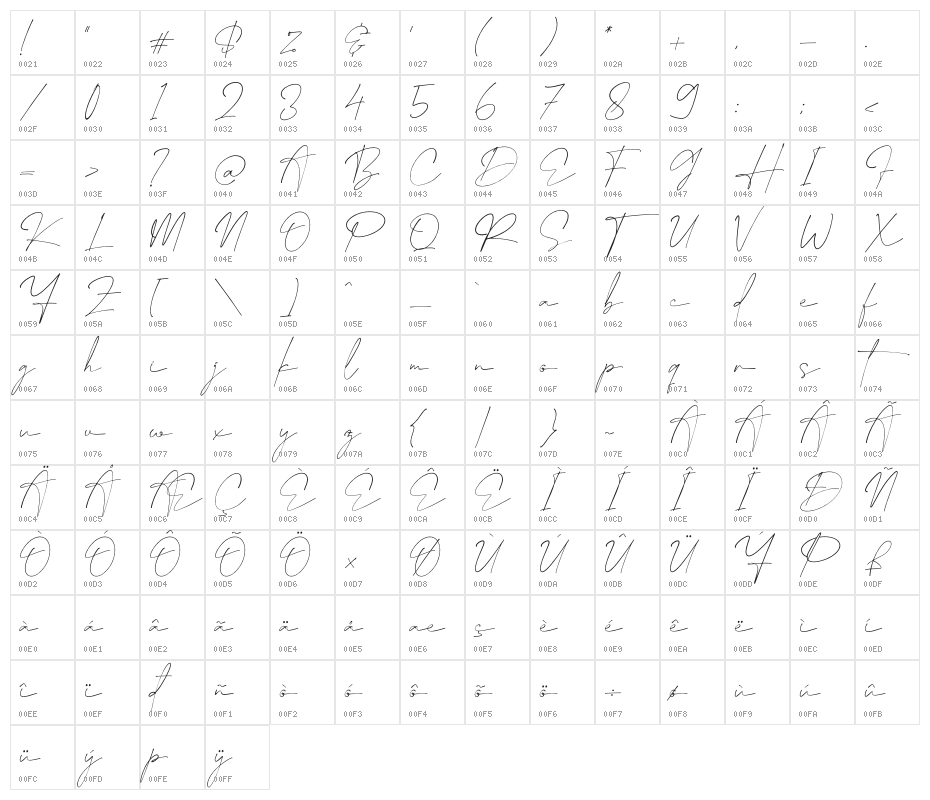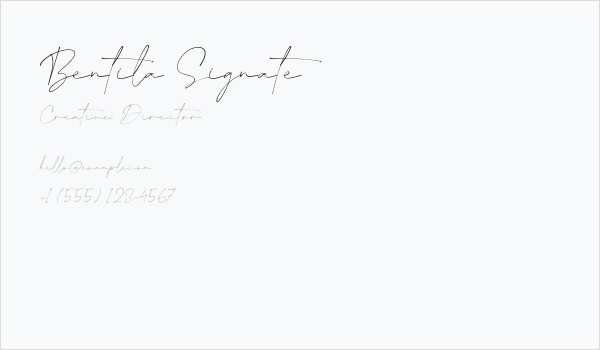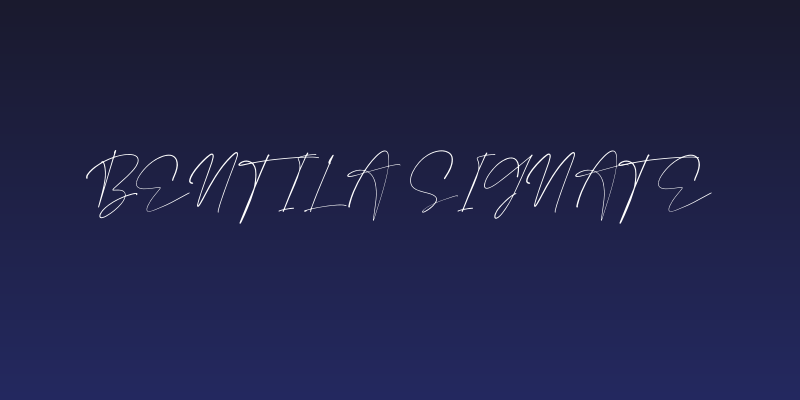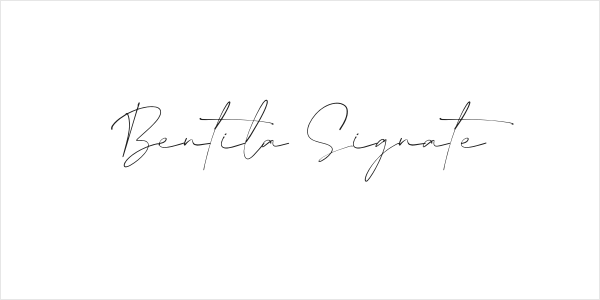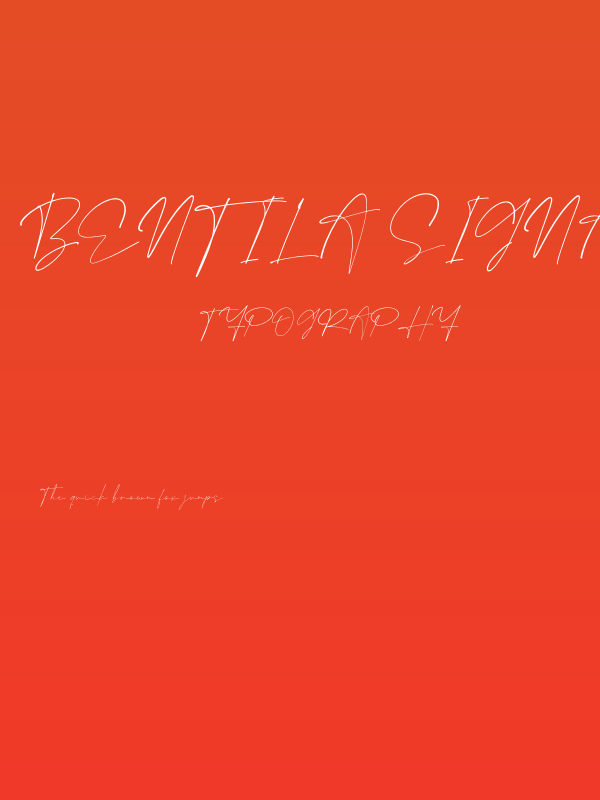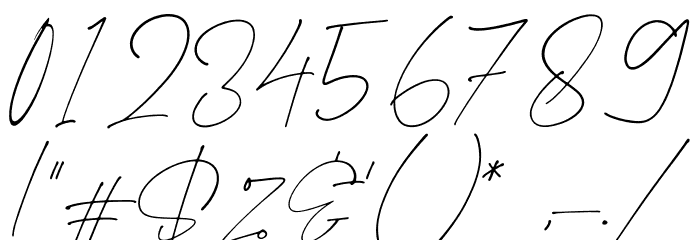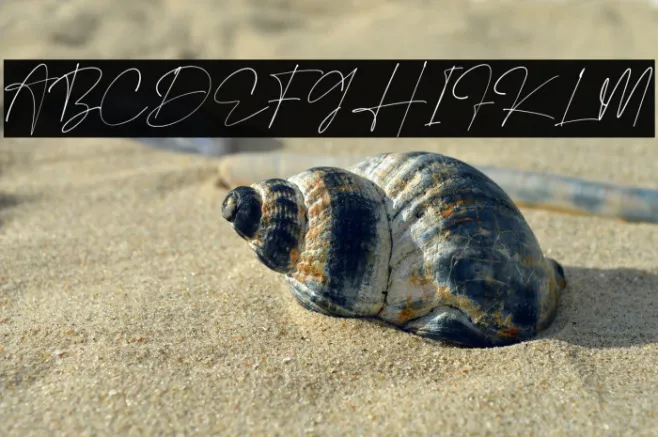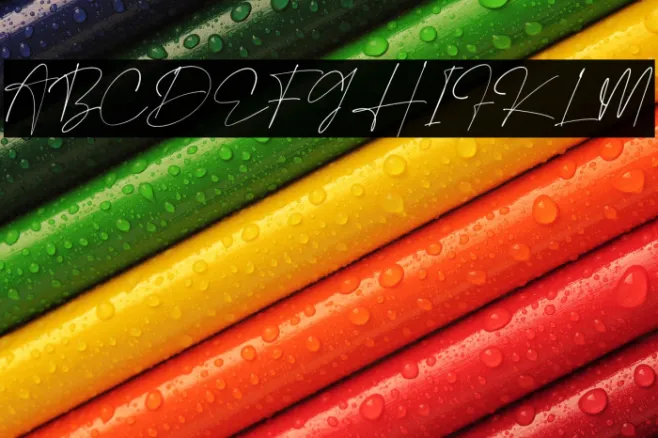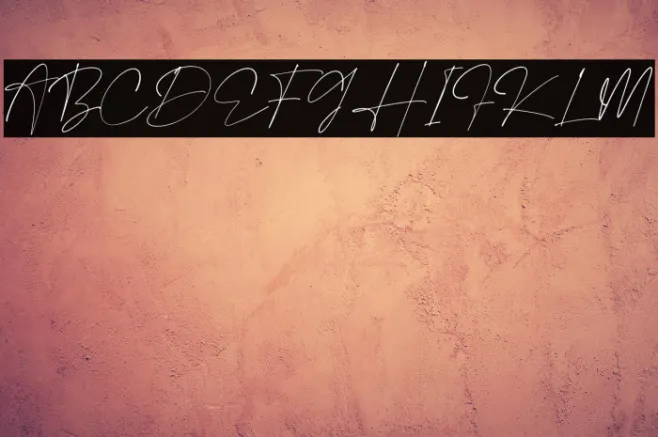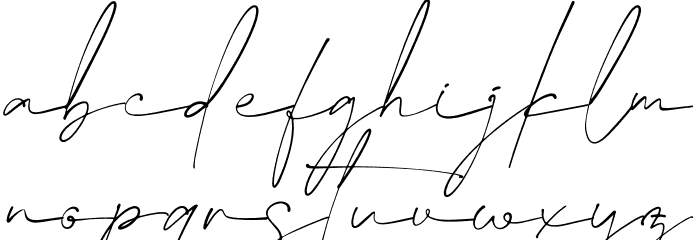
Bentila Signate Font
Bentila Signate Description
This font exudes a modern, handwritten style with a touch of elegance and fluidity. The characters are crafted with a delicate, flowing script that mimics natural handwriting, giving it a personal and intimate feel. The uppercase letters maintain a consistent height, while the lowercase letters feature graceful ascenders and descenders, adding to the font's dynamic appearance. The numerals and special characters are designed to complement the alphabet, maintaining the same fluid and cursive style. Overall, this font is perfect for projects that require a personal touch, such as invitations, greeting cards, or branding materials that aim to convey elegance and sophistication.